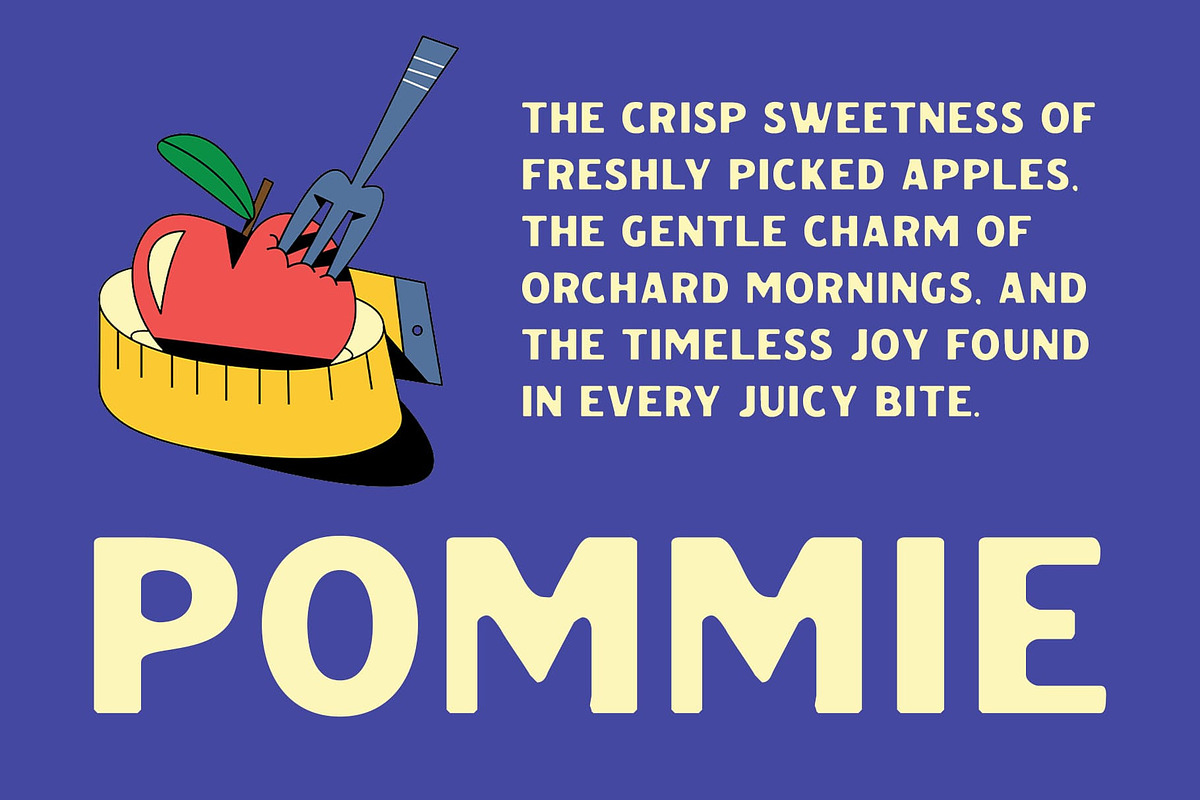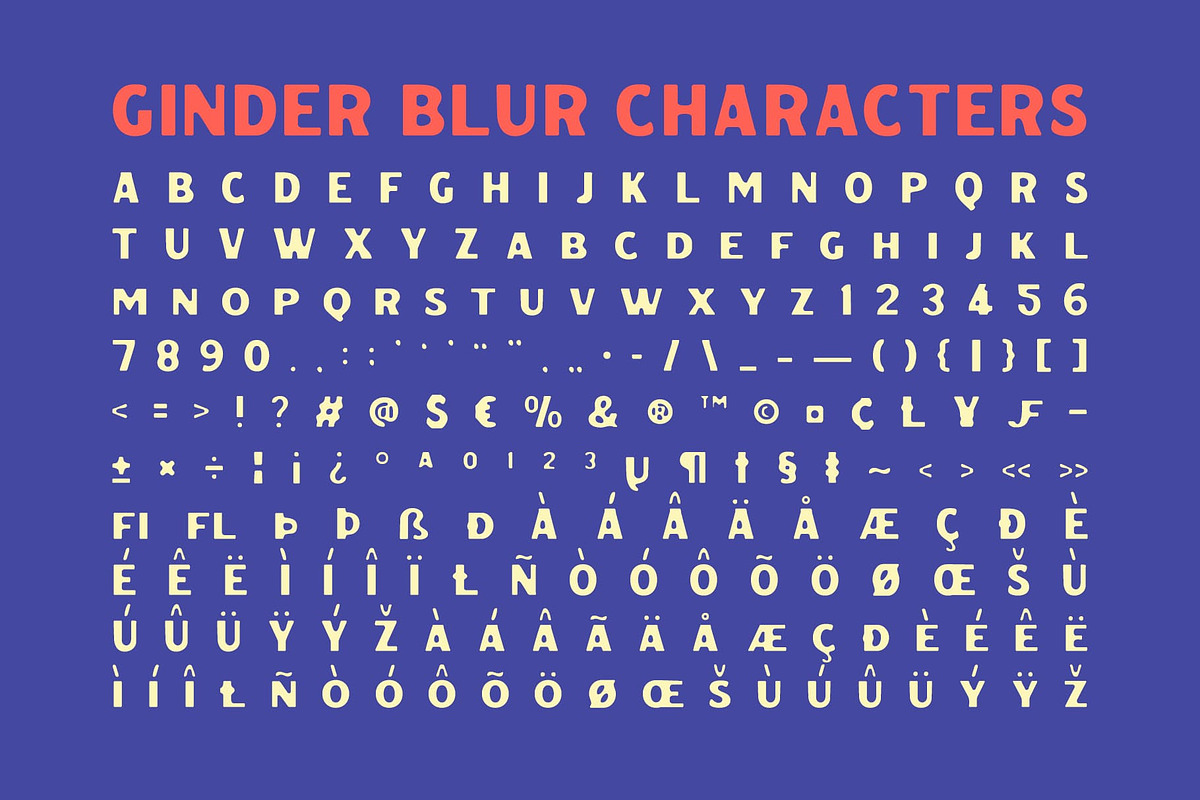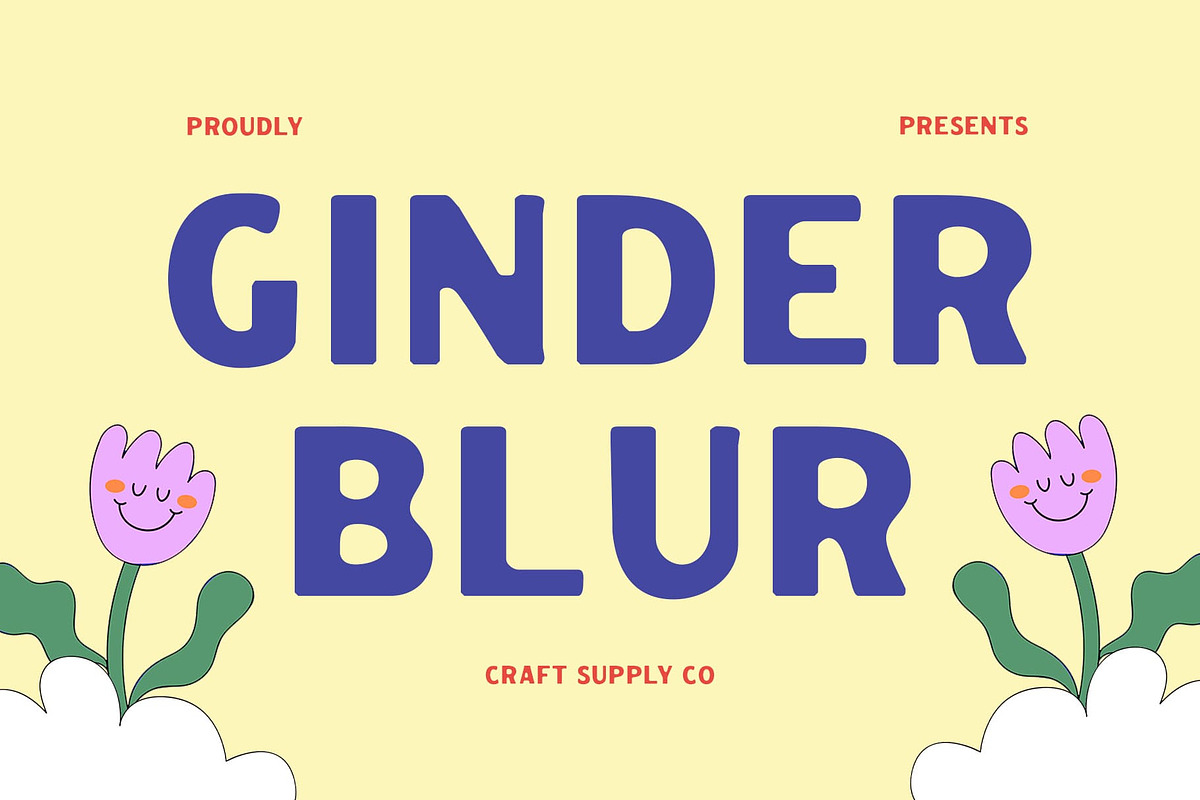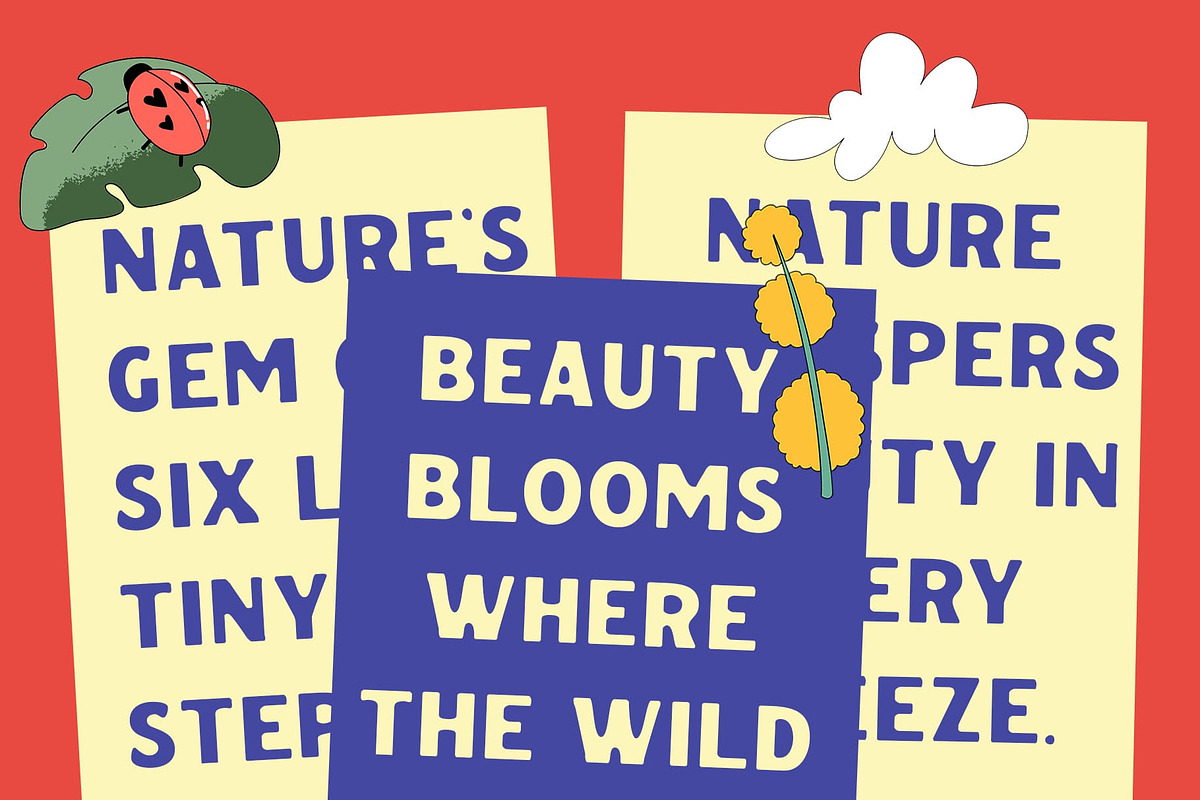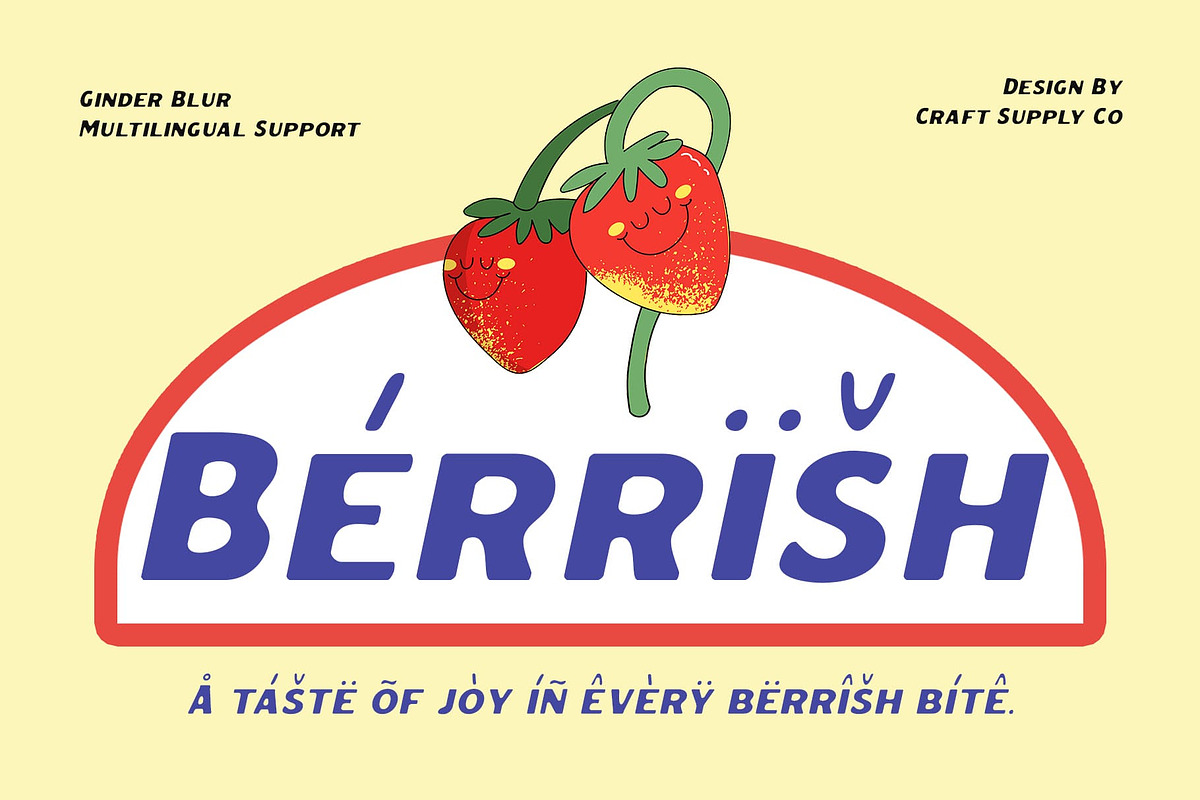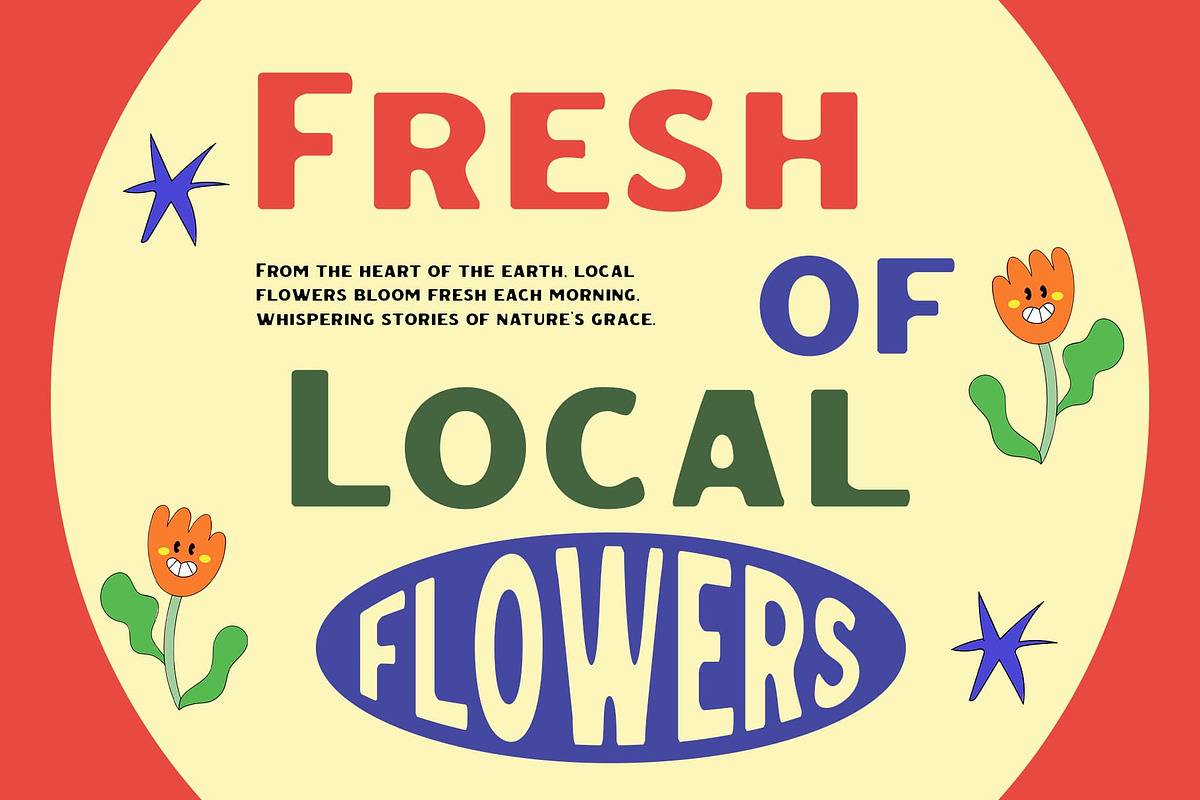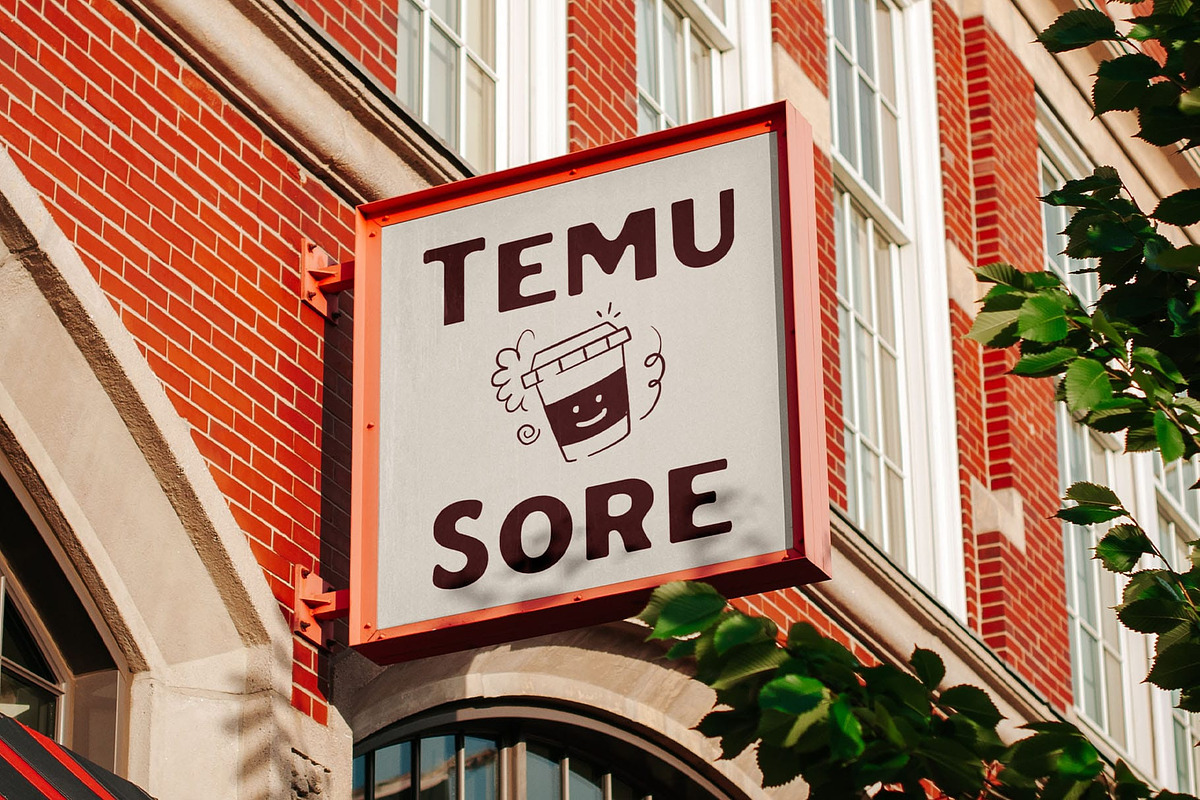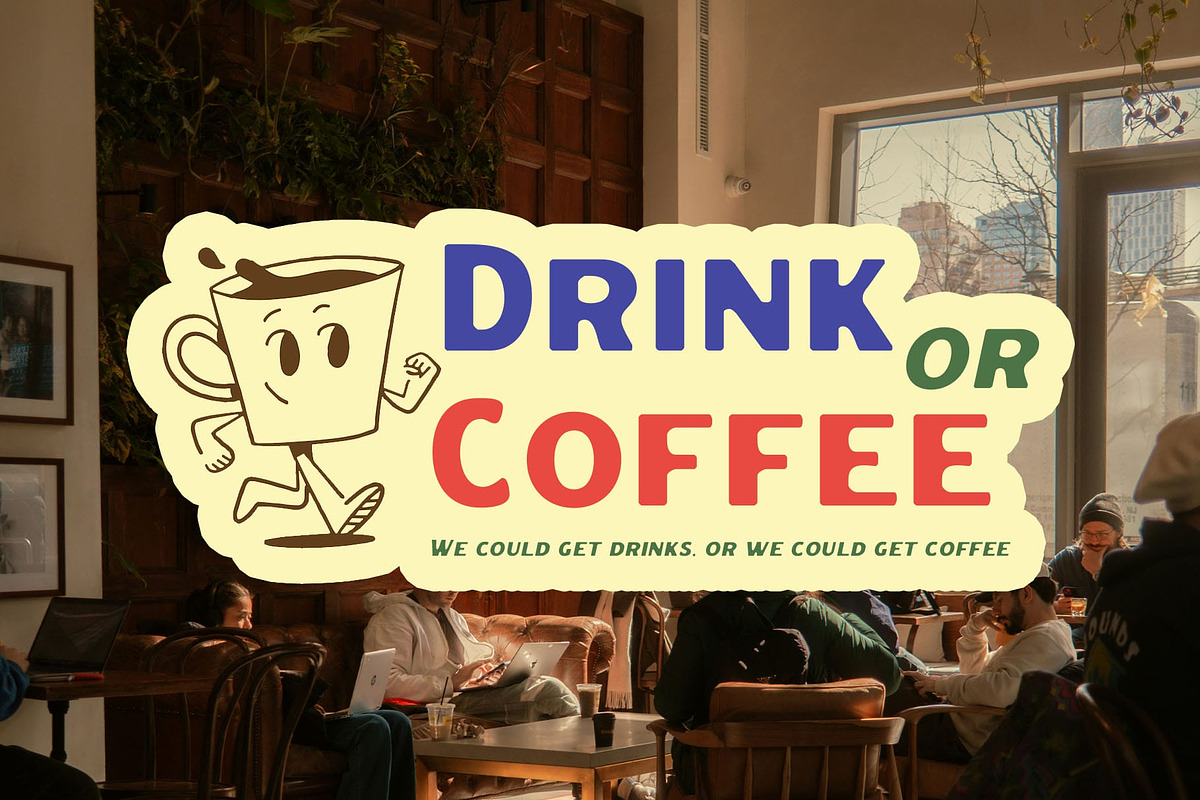
Ginder Blur
Ginder Blur Font – Bold Serif with a Nostalgic Twist
Display Serif Font with Blur Effect Ginder Blur is a bold serif display font that merges timeless elegance with a creative blur effect. Rooted in classic retro aesthetics, this font carries a strong personality while softening its impact through subtle blurring, creating a warm, dreamlike atmosphere. It’s the perfect choice for visual storytelling that blends heritage with artistic flair.
Bold Retro Form with Elegant Details Each character in Ginder Blur boasts a confident serif structure, inspired by vintage typography traditions. Its bold, sturdy shapes are balanced by refined curves and well-defined proportions, making it both readable and visually rich. The classic styling channels retro influences while maintaining a modern sophistication.
Atmospheric Blur for Vintage Warmth The soft blur overlay adds an expressive layer of depth and texture, gently diffusing the edges of each letter. This effect not only enhances its vintage charm but also introduces a unique softness, creating an inviting and nostalgic vibe that feels timeless yet contemporary.
Perfect for Artistic, Retro-Inspired Designs Ginder Blur is ideal for projects that demand a vintage soul with a bold voice. Use it in retro posters, classic product packaging, heritage-inspired branding, or editorial layouts seeking a poetic and expressive touch.